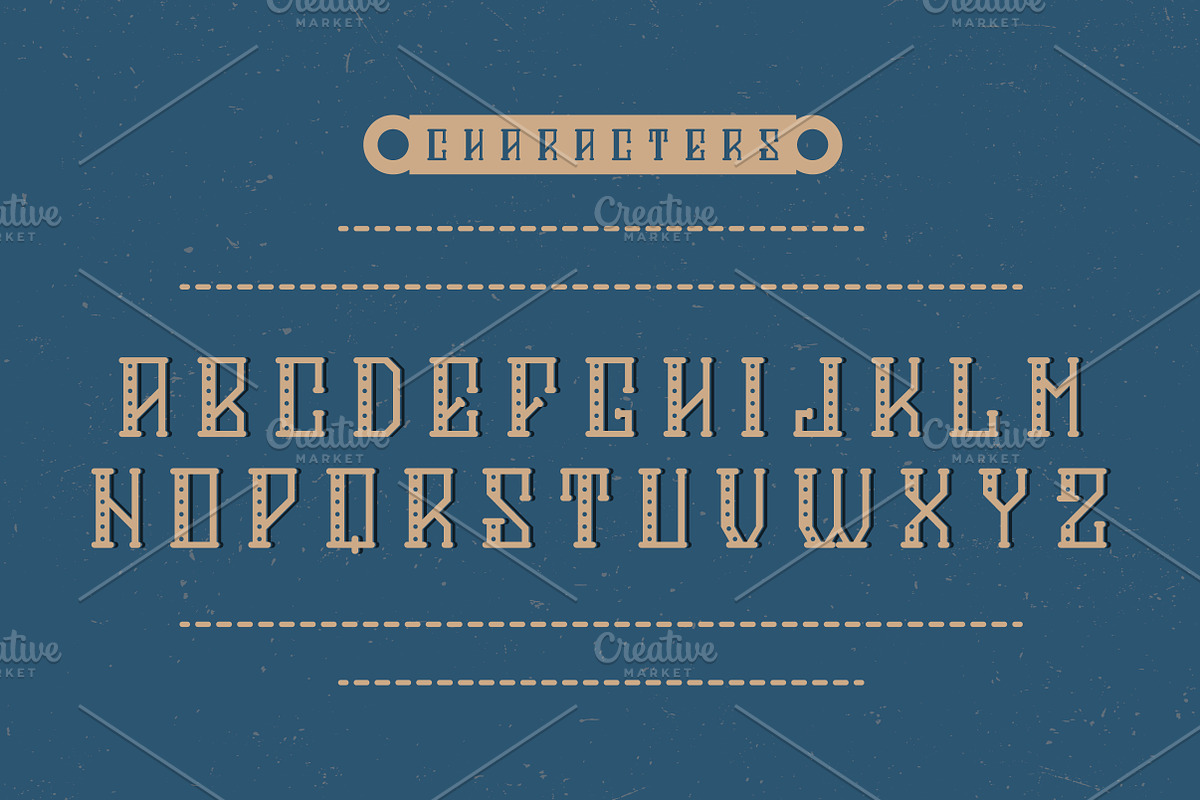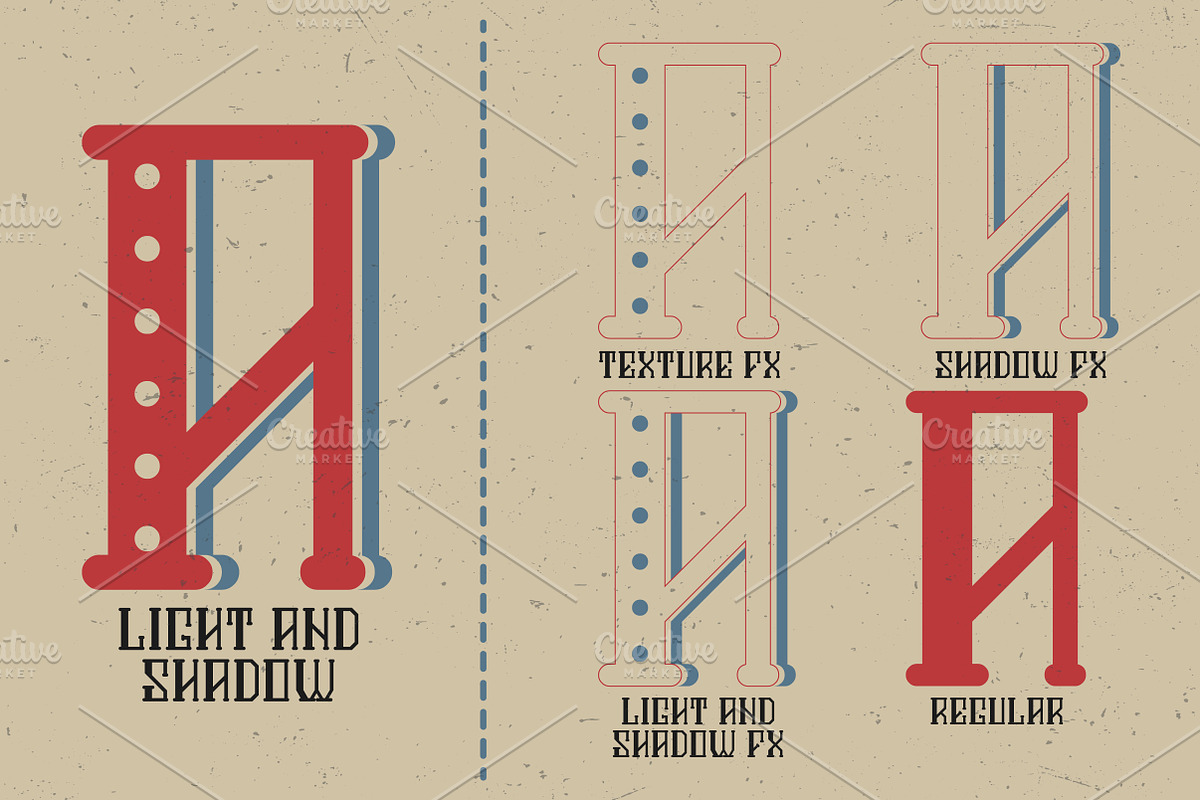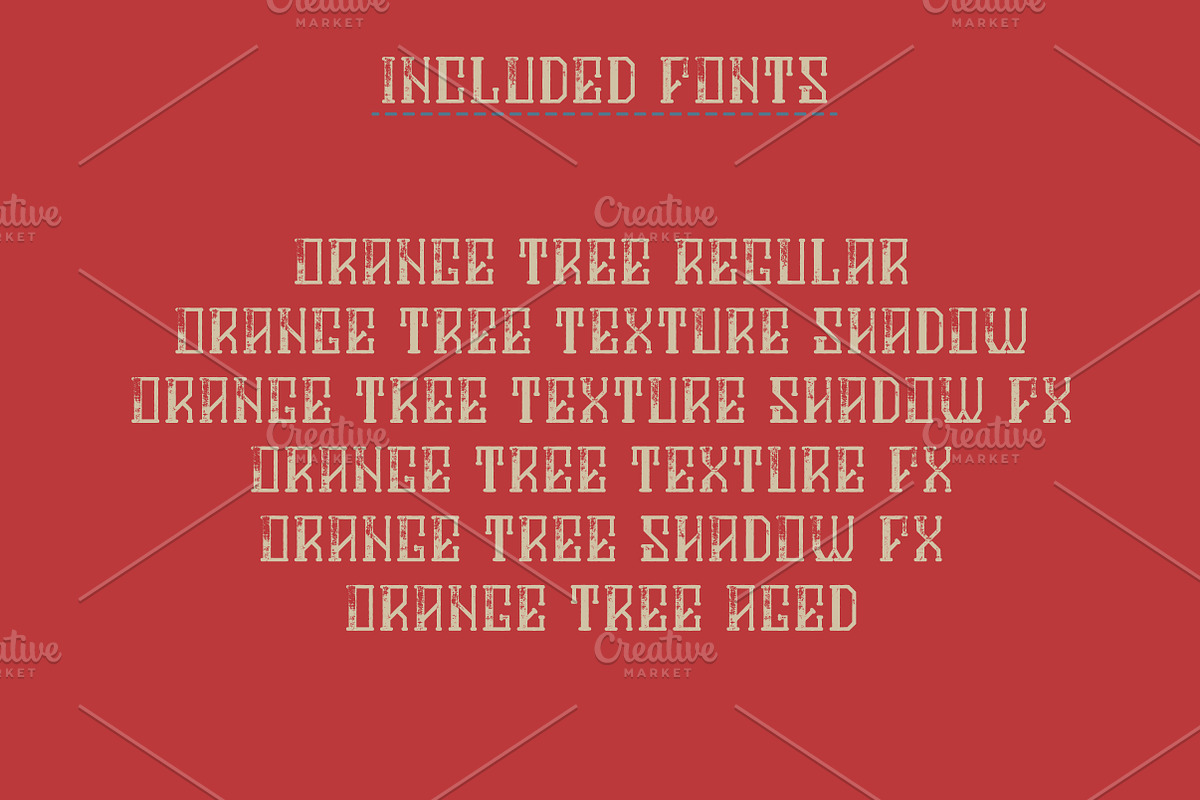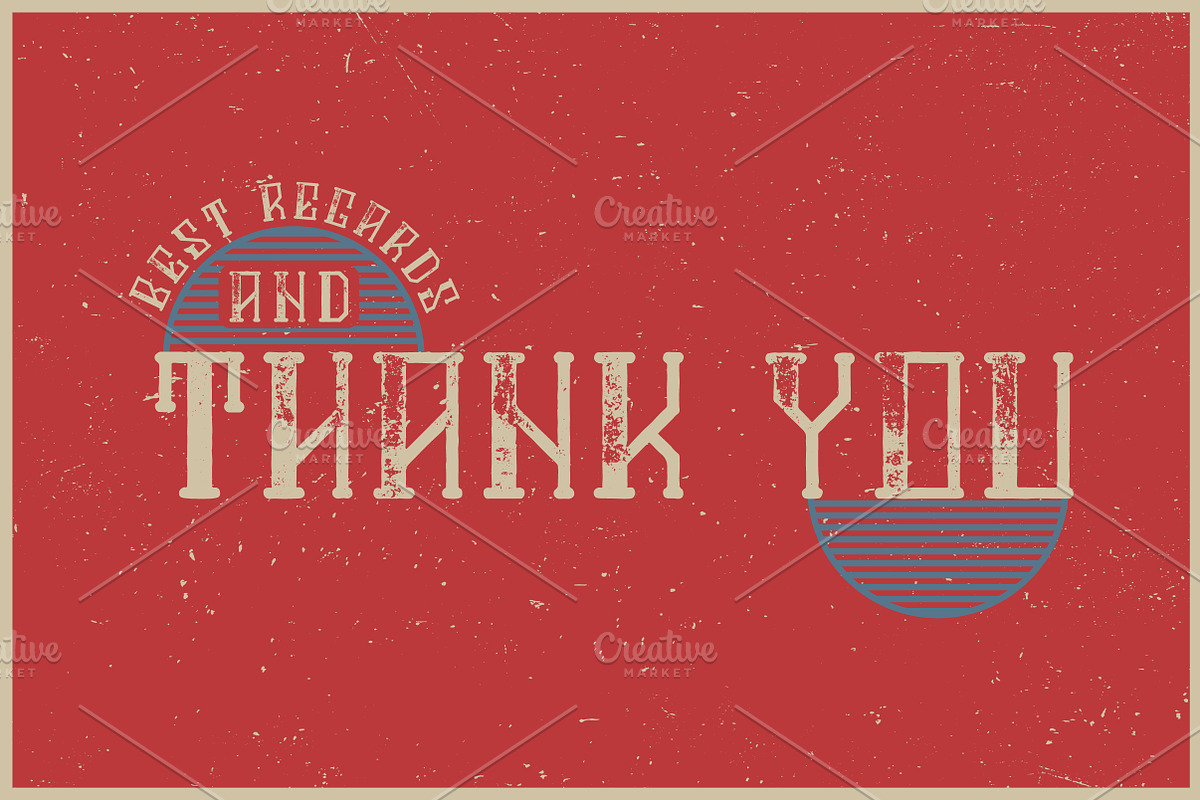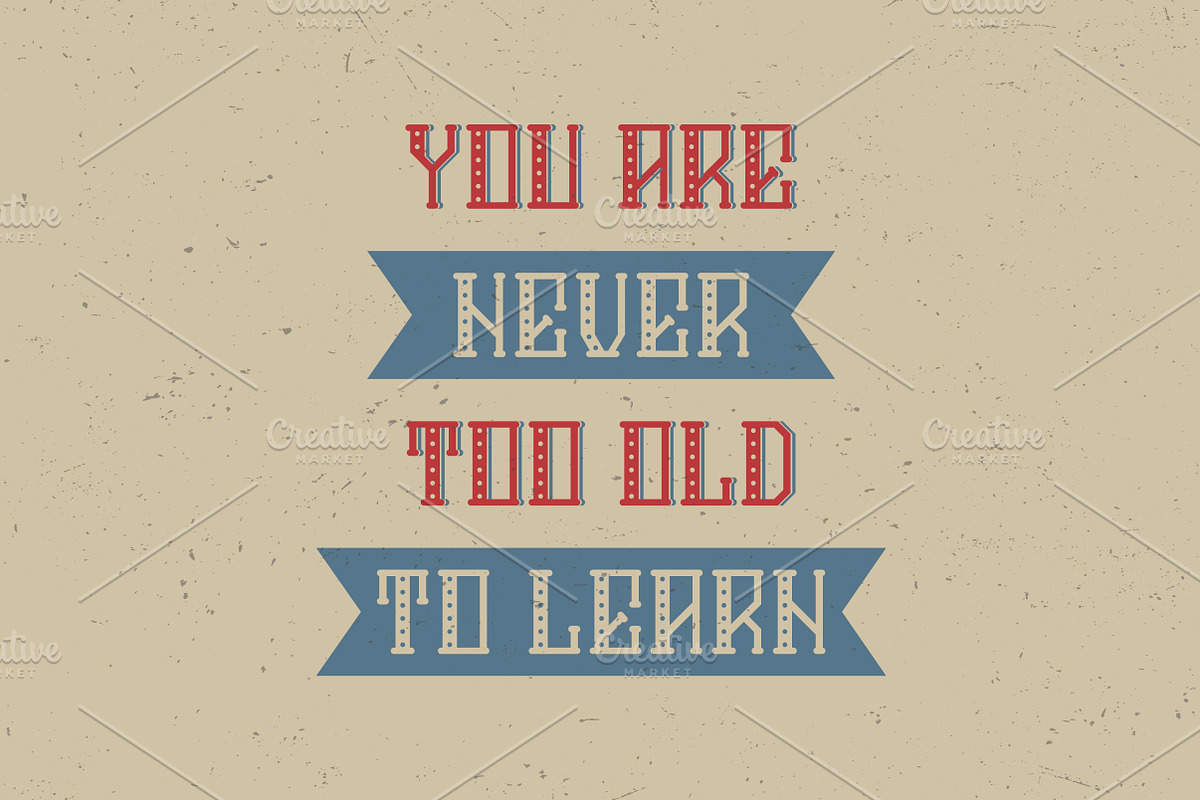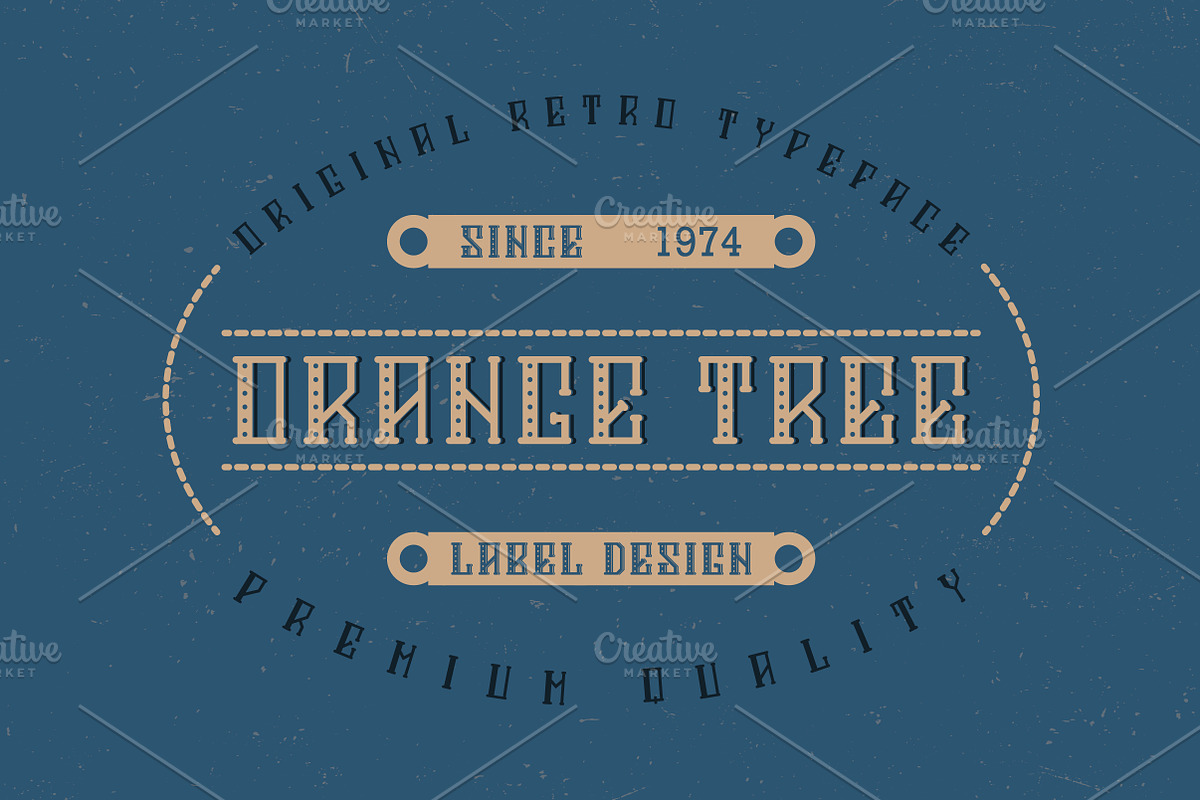
Orange Tree Typeface
Introducing a vintage label typeface named "Orange Tree". It's made in strong and vintage label style. Typeface looks great on any label designs.
5 fonts in complect with special effects, plus aged version
You can mix color of base font, texture and shadow effect (look at 3rd screenshot)
Orange Tree Typeface by Heatherinsane fits naturally into Branding, posters, packaging, typography.